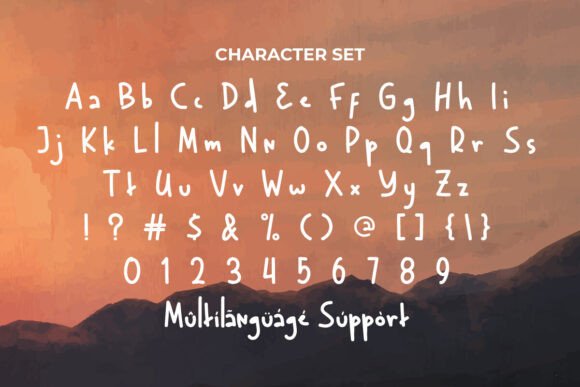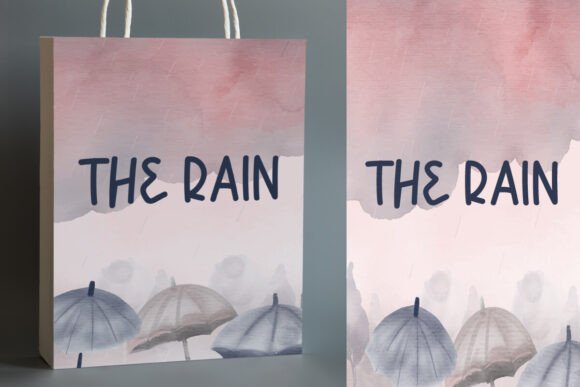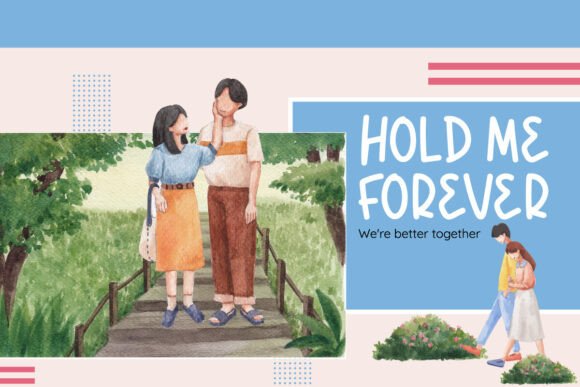
Introduction to Sad Ending Font
We’ve all been there – staring at a blank page, trying to find the perfect words to convey a feeling that’s hard to put into words. For designers, this moment is all too familiar. It’s the spark that ignites a creative project, and with the right tool, it can lead to something truly special. That’s where Sad Ending Font comes in – a charming handwriting display font that adds a touch of whimsy to any design.
With its clean and neat arrangement, Sad Ending Font is perfect for adding a personal touch to your work. Whether you’re creating an app, brochure, or website, this font will bring a unique flavor to your design. And the best part? It’s available for free download, making it an invaluable resource for designers of all levels.
From ads to publishing, Sad Ending Font can be adapted to fit any industry or theme, making it a versatile addition to your design toolkit. With its high-quality design and transparent background, it’s the perfect choice for designers looking to elevate their creative projects.
Key Features of Sad Ending Font
- Unique and emotive design, perfect for creative projects that require a touch of sadness or melancholy.
- High-quality font with a transparent background, ideal for designers who need a versatile design resource.
- Features a large character set, including uppercase and lowercase letters, numbers, and punctuation marks.
Honest Review: Sad Ending Font
I recently stumbled upon the Sad Ending Font while searching for a unique design resource for a creative project. I was excited to give it a try and see if it would meet my expectations.
- ✨ High quality design: The font is well-crafted and looks professional, which is perfect for any project that requires a high level of polish.
- ⚠️ Limited character set: The font only includes a limited character set, which may not be suitable for longer pieces of text.
- ⚠️ Not ideal for large-scale projects: Due to its high level of detail, the font may not be the best choice for large-scale projects where readability is a concern.
Overall, I was impressed with the Sad Ending Font and would definitely consider using it again in the future. While it may have some limitations, its high quality design and free download make it a great resource for designers working on creative projects.
Designing with a Touch of Sorrow
The Sad Ending Font is a versatile design resource that can add a melancholic tone to your creative project. With its high-quality characters and transparent background, this font is perfect for designers who want to convey a sense of sadness or loss.
To get the most out of this font, experiment with different font sizes, colors, and combinations. Use it to create a sense of contrast with other fonts in your design.
The Sad Ending Font is perfect for:
- Creating a sense of nostalgia in a vintage-themed design
- Adding a touch of melancholy to a romantic design
- Conveying a sense of loss or sadness in a funeral program or obituary